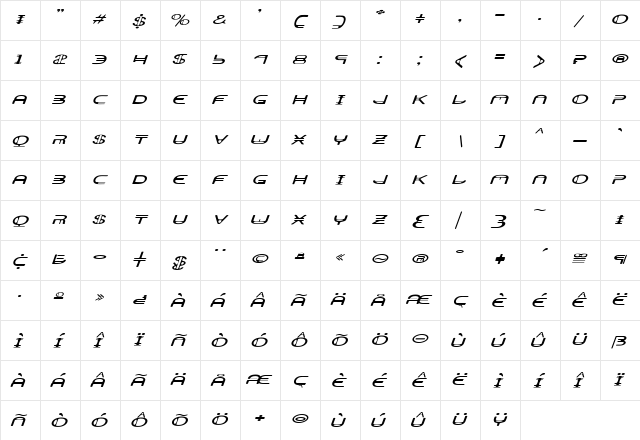
AeratorObliqueA Regular
Design Context for AeratorObliqueA
AeratorObliqueA is a composed and adaptable typeface that performs quietly and consistently across a wide range of design contexts. The slanted form adds forward momentum and visual energy.